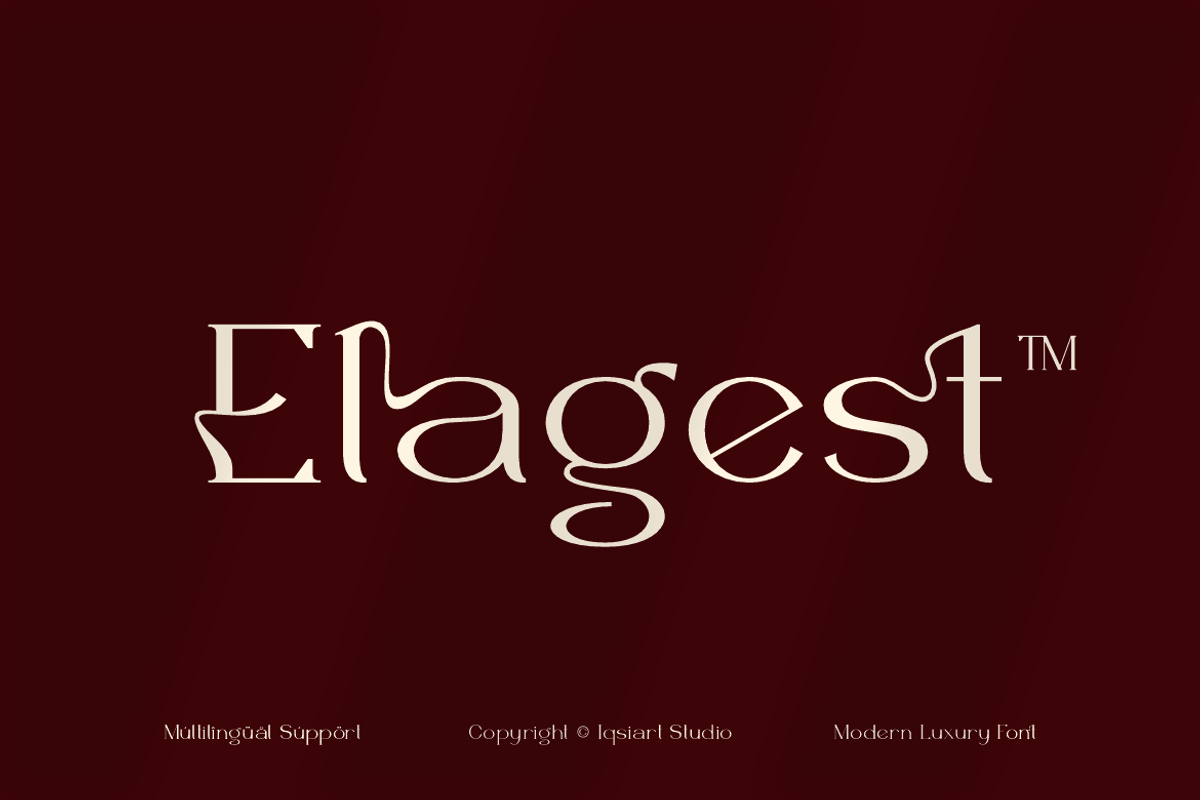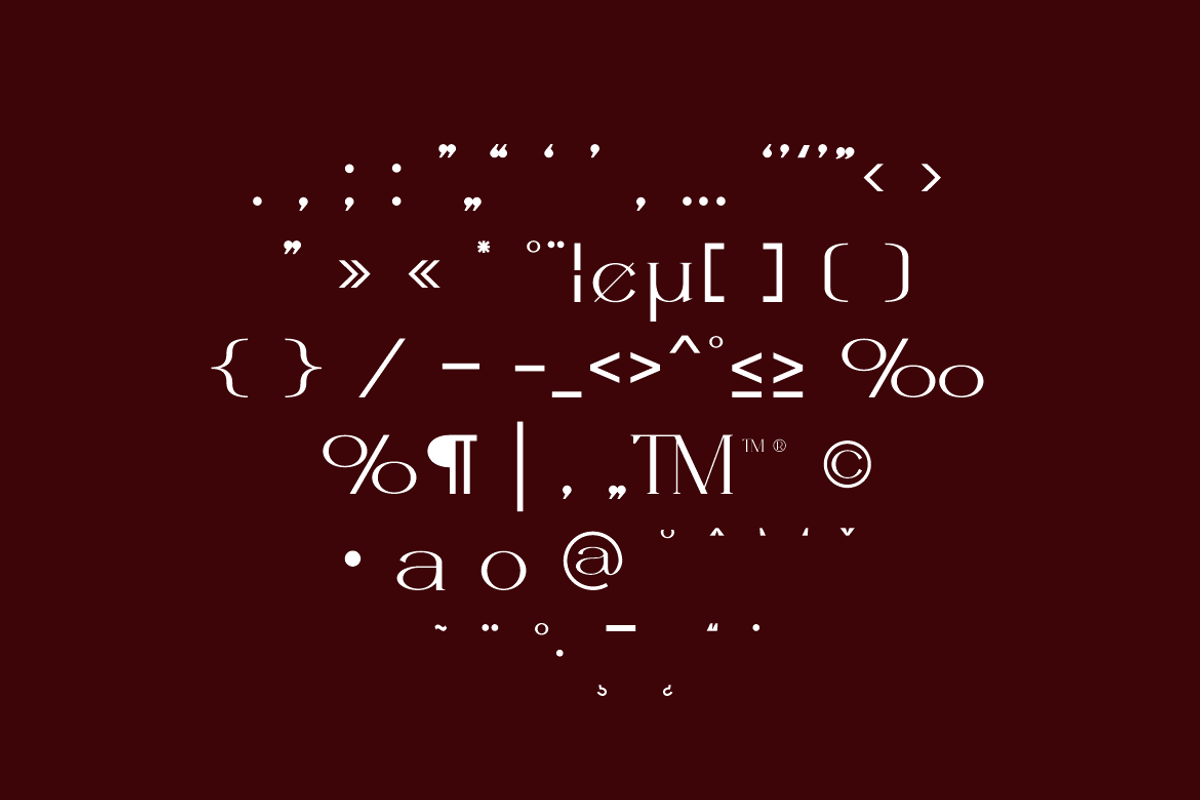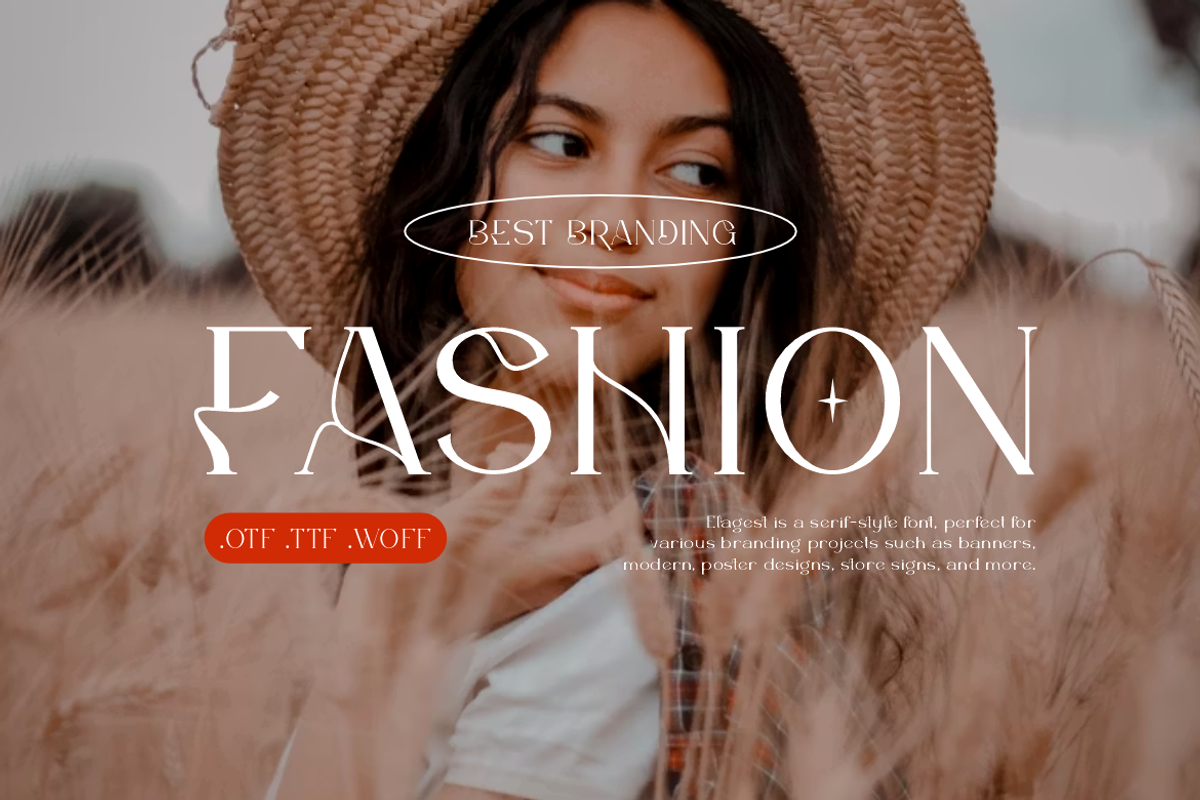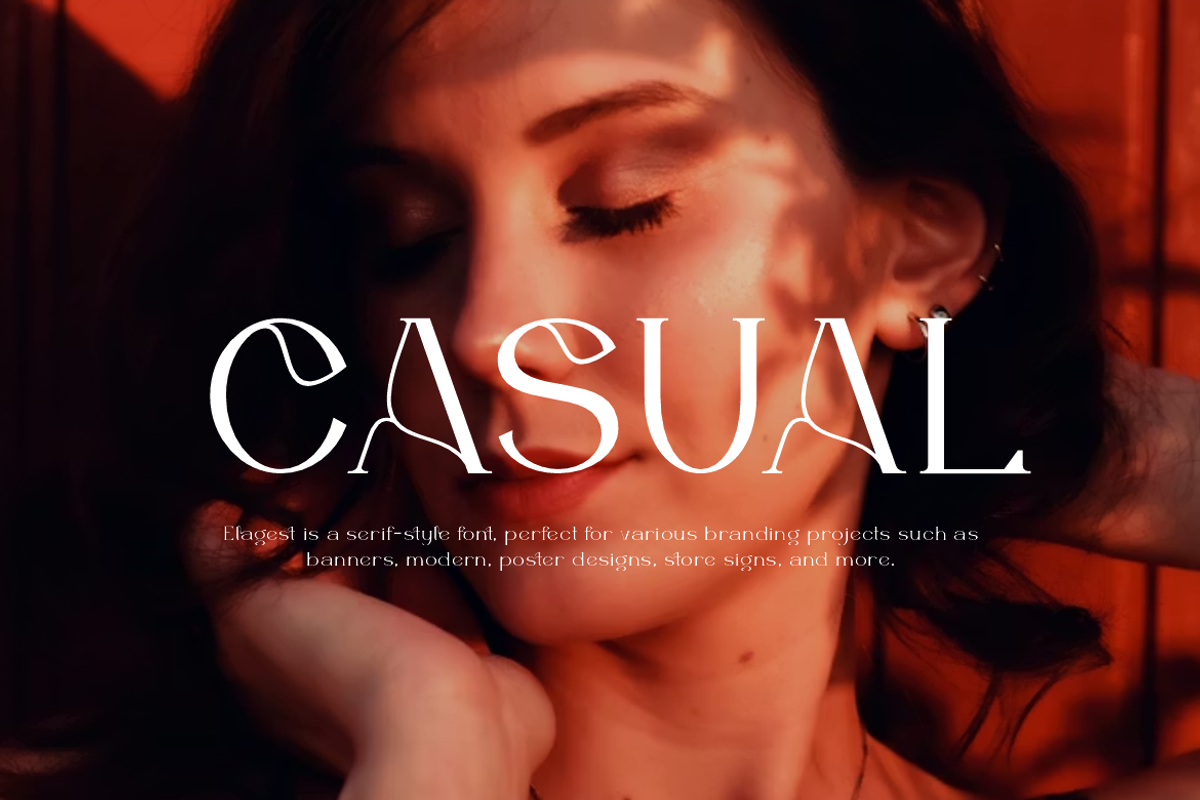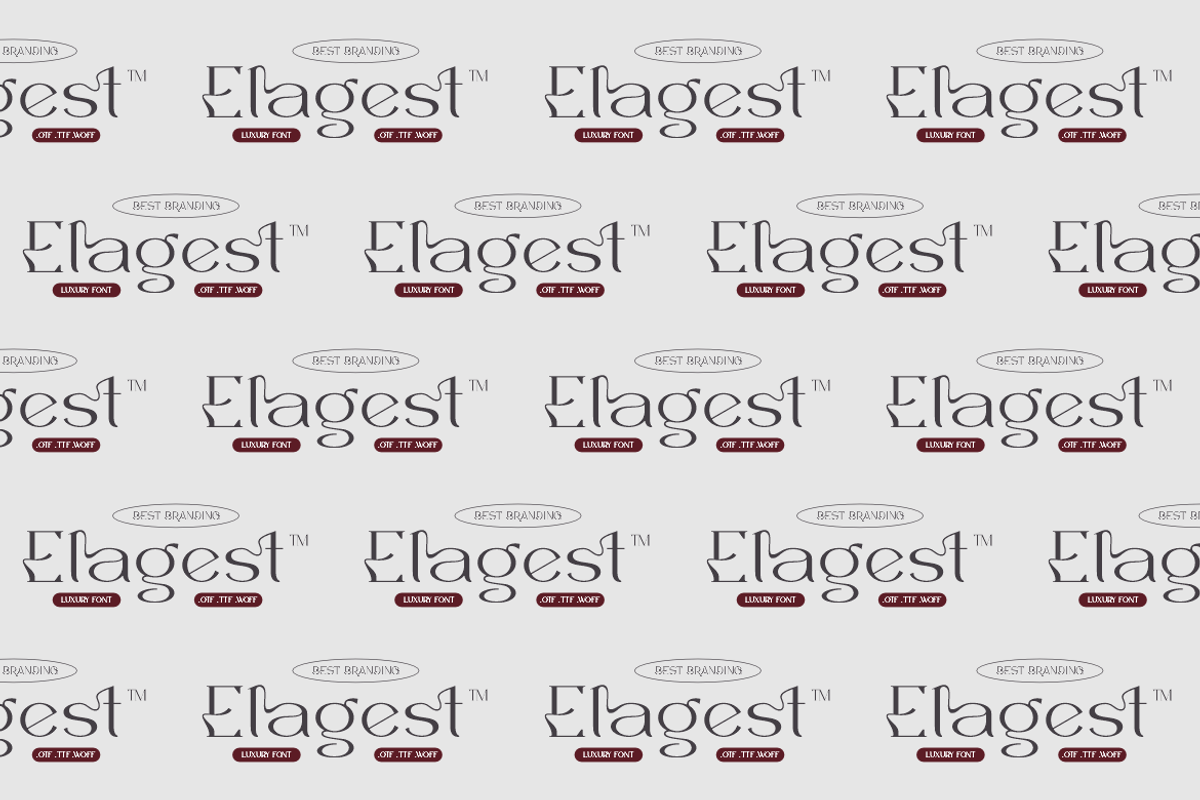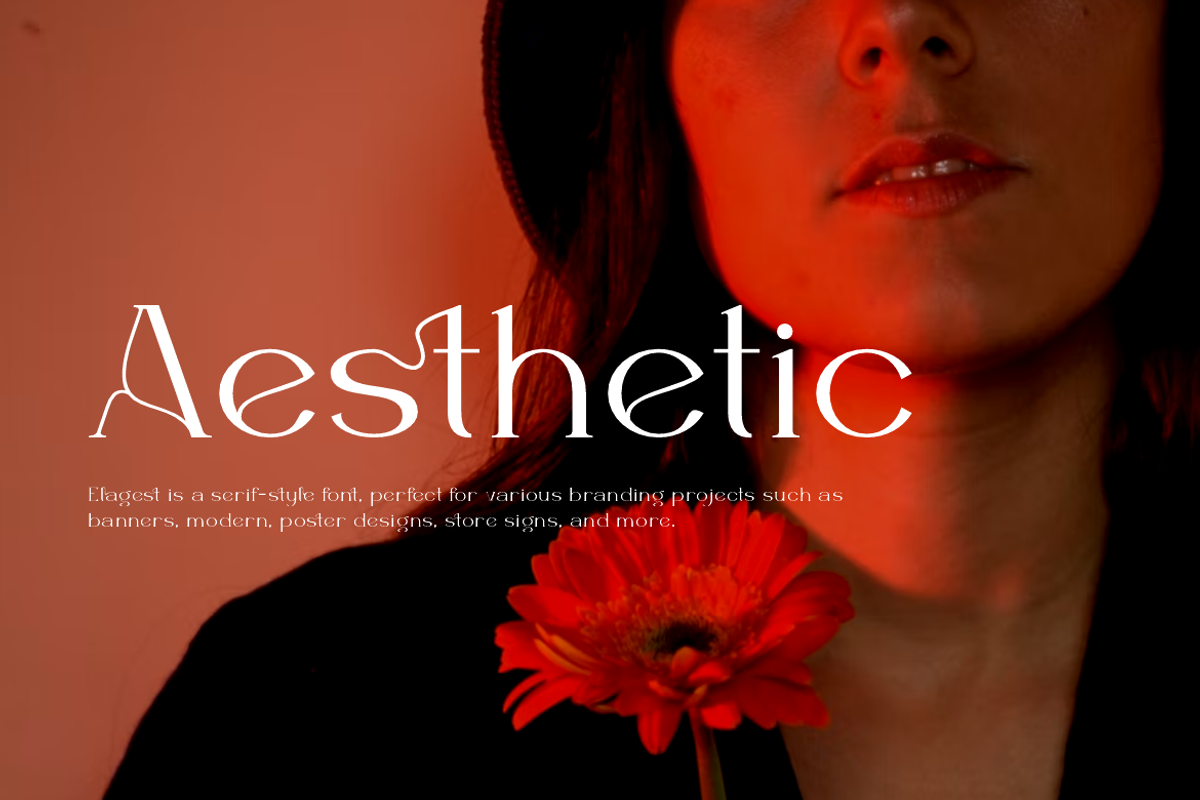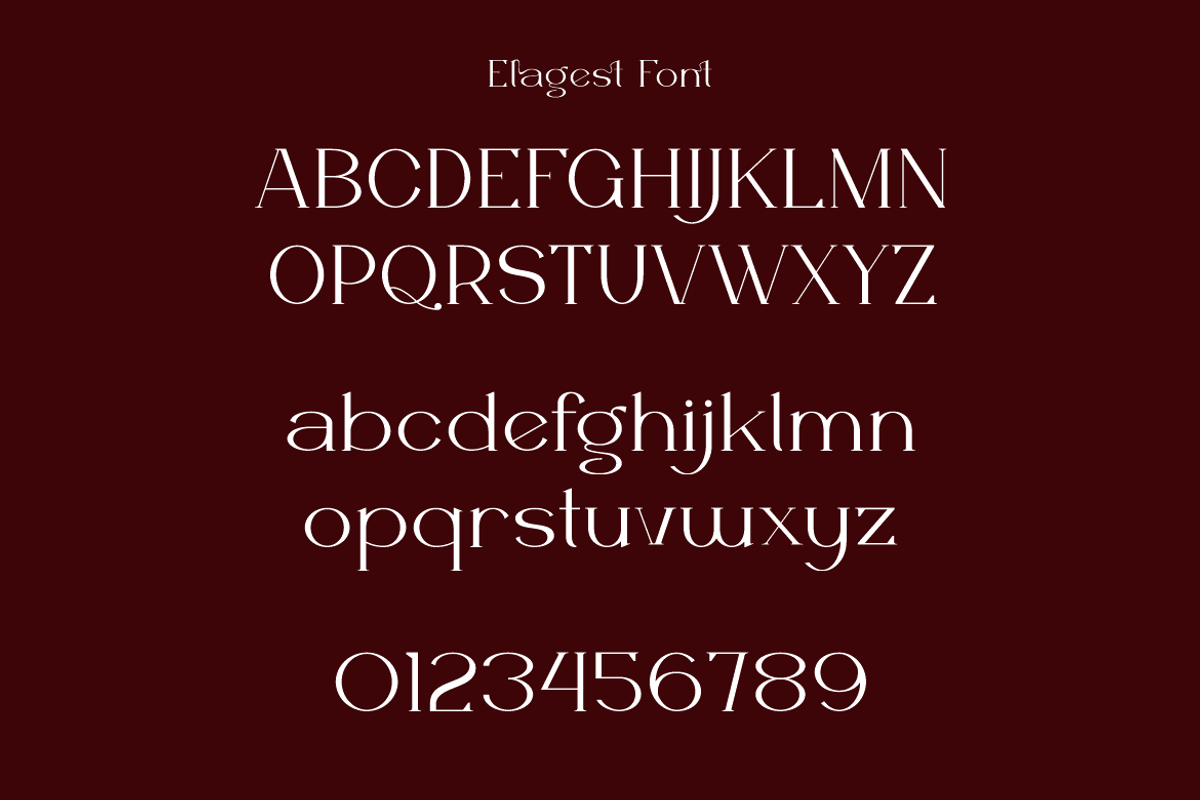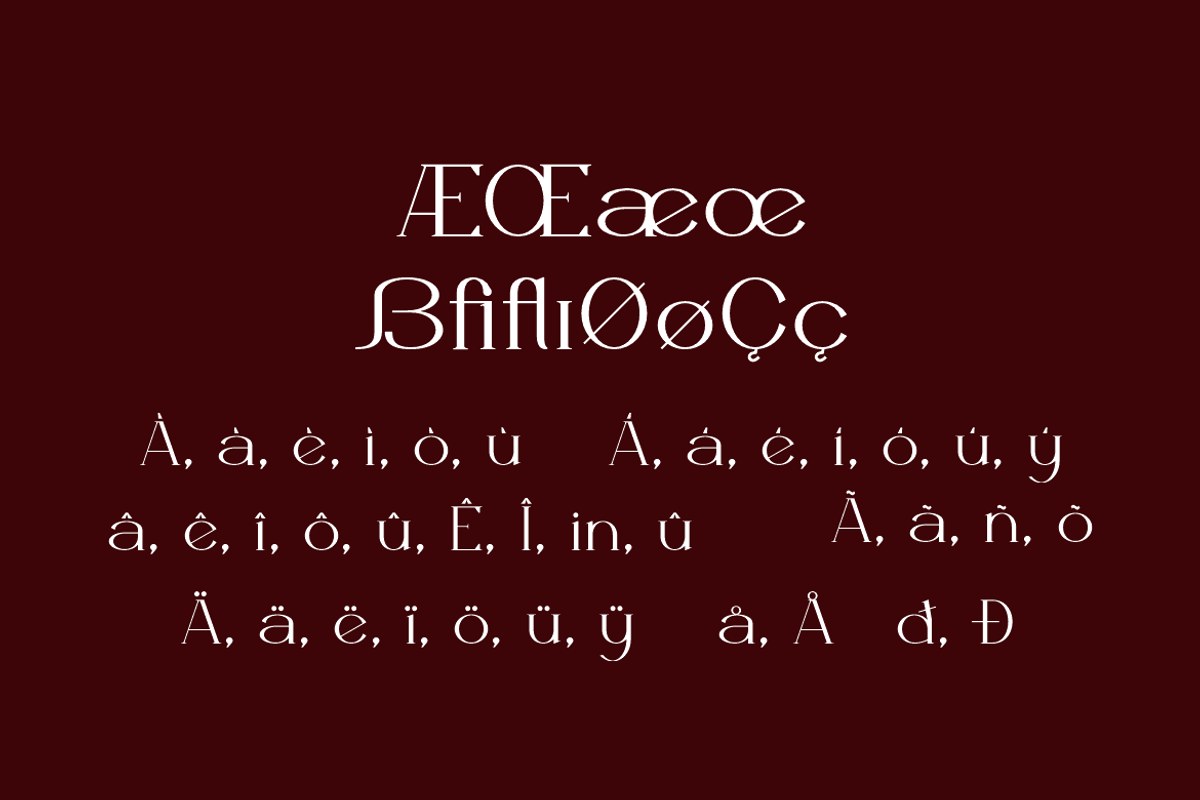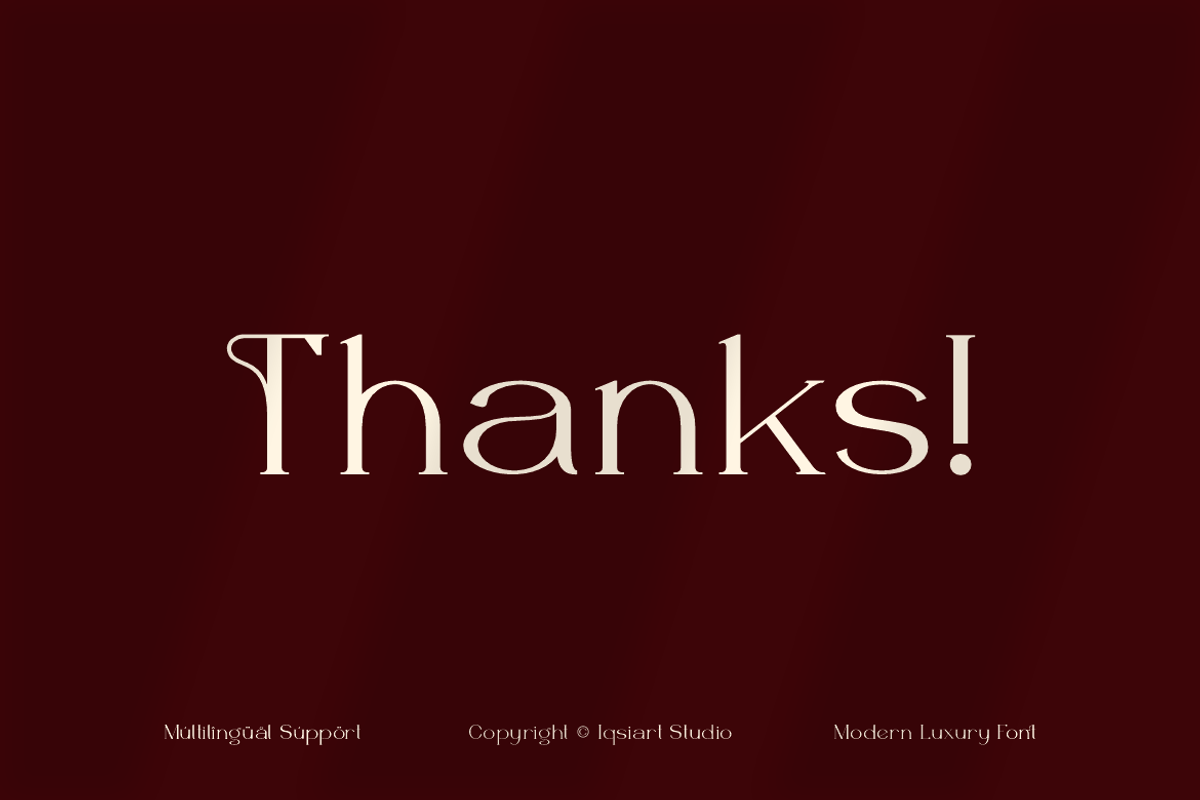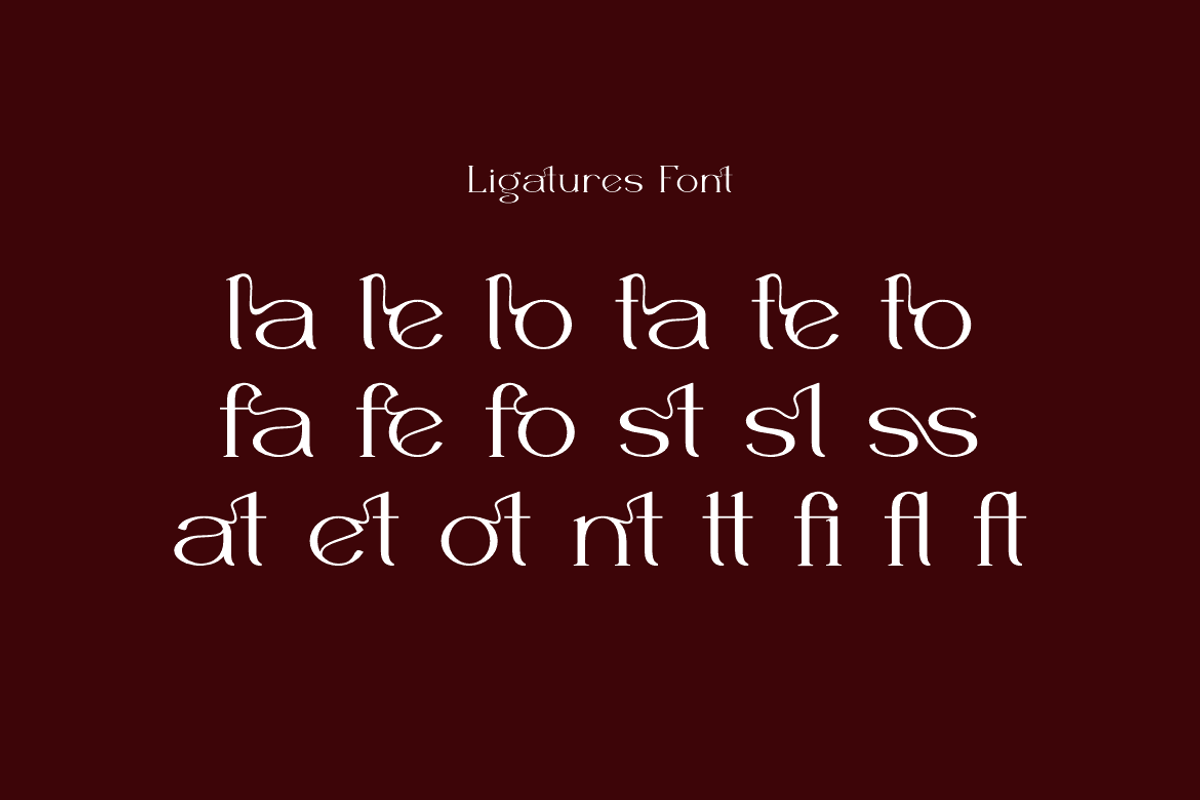
Elagest - Modern Serif Font
Elagest Font is a serif and authentic display typeface that suits a variety of design needs. We offer a wide range of themes and font styles — visit our profile to explore more and find the perfect style for your project.